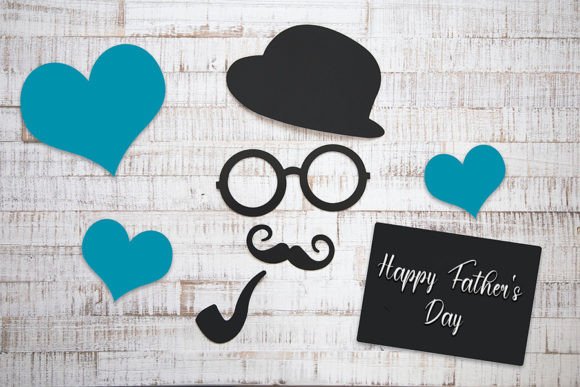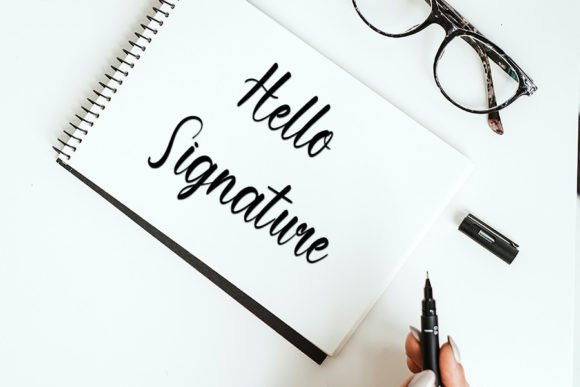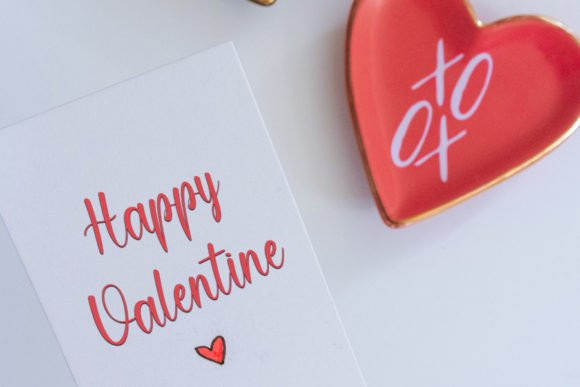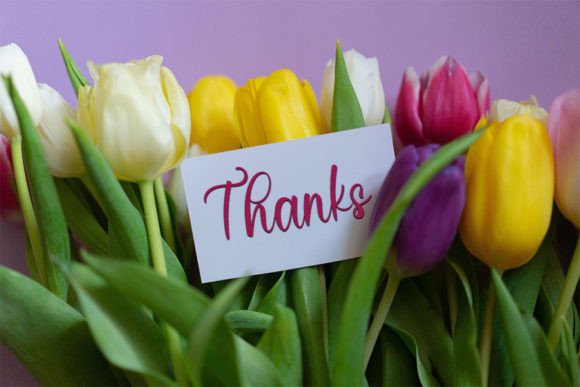
Father Font
About Father Font
“Father” is an exquisite handwritten font that seamlessly blends neatness and beauty, offering an elegant touch that is perfect for your most cherished projects. This font is not just a typographic choice; it’s a sophisticated design element that can transform your creative endeavors. Fall in love with the distinctive and timeless style of “Father” and let it be the driving force behind your pursuit of creating truly spectacular designs.
At its core, “Father” stands out with a unique elegance that sets it apart. The careful strokes and thoughtful design details contribute to its neat and beautiful handwritten aesthetic. This font is more than a tool; it’s an artistic expression that can elevate your work, infusing it with a sense of refinement.
The versatility of “Father” makes it suitable for a wide range of applications. Whether you’re working on invitations, branding materials, or any other creative project, this font brings a touch of sophistication that leaves a lasting impression. Its timeless style ensures that “Father” remains relevant and appealing, no matter the design theme or trend.
As you explore the nuances of “Father,” you’ll discover its capacity to inspire and enhance your creativity. Every character in this font tells a story of distinctiveness, making it an ideal choice for those who appreciate the finer details in design. The handwritten nature of “Father” adds a personal and authentic feel to your projects, creating a connection with your audience.
Incorporating “Father” into your designs is not just about selecting a font; it’s about embracing a visual language that communicates elegance and style. This font becomes a key element in your design toolkit, enabling you to craft compositions that stand out and resonate with your intended audience.
In summary, let “Father” be the muse for your creativity. Fall in love with its beauty, embrace its distinctiveness, and let it guide you in creating designs that are nothing short of spectacular. With “Father,” you’re not just using a font – you’re adding a touch of timeless elegance to your projects.